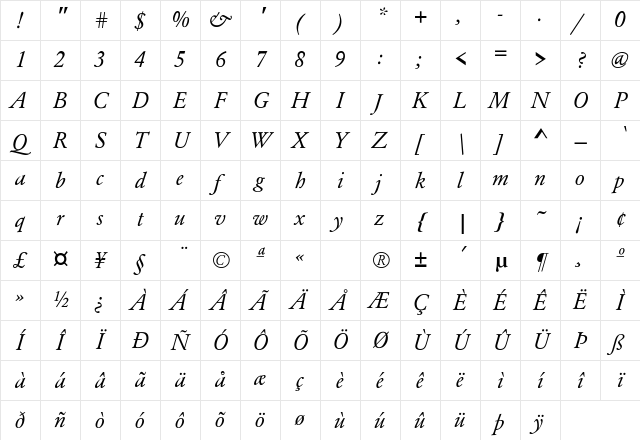
Garamond-RomanItalic is a composed and adaptable typeface that performs quietly and consistently across a wide range of design contexts. The slanted form adds forward momentum and visual energy.
Pro Tip: Use Garamond-RomanItalic for emphasis, pull quotes, and subheadings where its slanted energy can add rhythm to the layout.